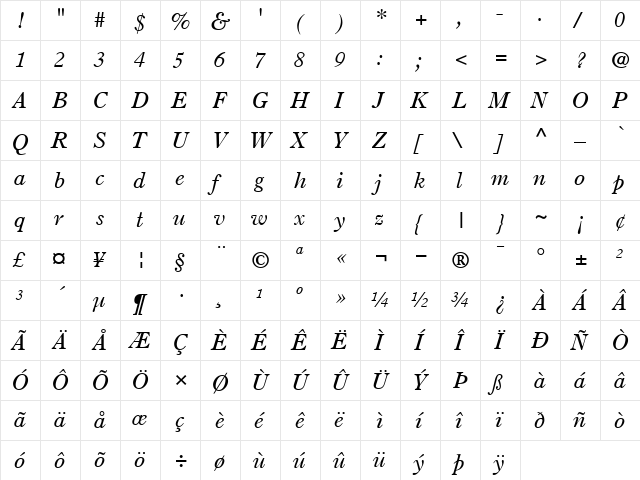
OldStyle7 RomanItalic Font Preview
OldStyle7 RomanItalic
OldStyle7 RomanItalic Font Details
| Style | RomanItalic |
Design Context for OldStyle7 Typeface
OldStyle7 brings classic typographic sensibility to the table — its serifs and measured letterforms reflect centuries of print heritage. The slanted form adds forward momentum and visual energy.